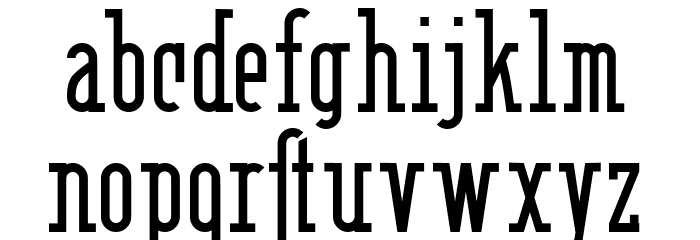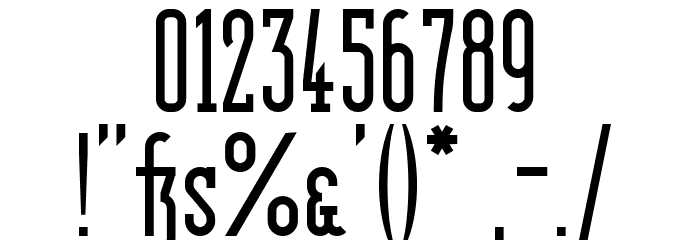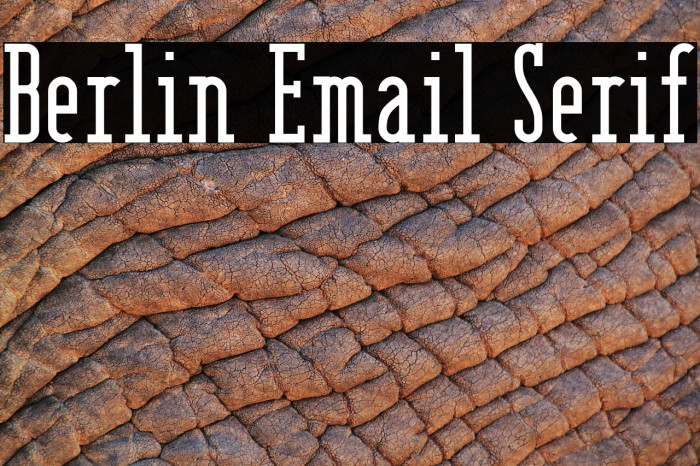
Berlin Email Serif Font
This typeface features a bold and striking design with a strong presence. The letters are tall and narrow, with pronounced serifs that add a touch of elegance and sophistication. The uppercase characters are particularly commanding, while the lowercase letters maintain a consistent style that complements the overall aesthetic. The numbers are clear and easy to read, making them suitable for various applications. Special characters are well-integrated, maintaining the font's cohesive look. This font is ideal for projects that require a bold and impactful statement.
A bold, serif typeface with tall, narrow letters and pronounced serifs.
- Proposed Projects: Ideal for headlines, posters, branding, and editorial design where a strong visual impact is desired.
- Category: Serif
- Overall Style: Classic